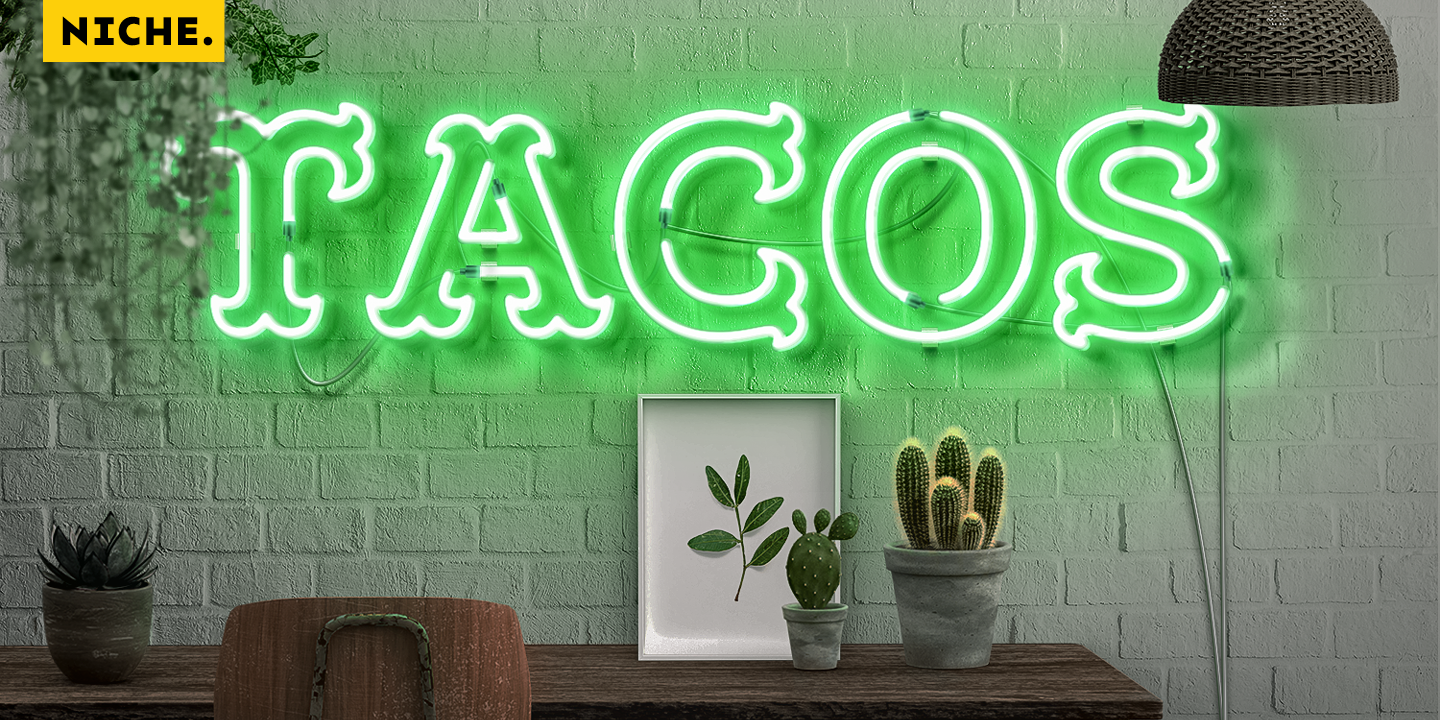
Poblano Font is perfect for authentic Mexican restaurant branding, traditional chili pepper farm communications, spicy food product packaging, Latin American cultural center signage, artisanal hot sauce company marketing, Mexican heritage festival promotions, Southwest cuisine cookbook designs, and fiery culinary experience campaigns. This flavorful typeface excels in applications where Mexican culinary tradition, spicy heat intensity, and authentic Latin flavor are essential for connecting with audiences who appreciate the rich heritage of Mexican cuisine and the bold intensity of traditional chili pepper culture.
What makes Poblano Font so exciting is its vibrant embodiment of Mexican culinary heritage and chili pepper authenticity that perfectly captures the essence of traditional poblano peppers and the rich cultural traditions of Mexican cooking where bold flavors and ancestral recipes create unforgettable dining experiences. The font features warm, earthy letterforms with pepper-inspired characteristics that evoke traditional Mexican pottery and handwritten recipe cards. Its flavorful character conveys authenticity, warmth, and cultural pride - essential qualities for brands serving Mexican food markets, spicy cuisine enthusiasts, and audiences who appreciate authentic Mexican flavors, traditional cooking methods, and the passionate culinary heritage of chili pepper cultivation and Mexican gastronomy.
The Poblano Font family includes multiple spicy weights and Mexican-inspired variations that enhance its culinary appeal. Some versions feature subtle texture elements that simulate dried pepper skins and traditional Mexican craftsmanship, while others provide cleaner variants that maintain the font's authentic character with enhanced readability for professional food service applications and commercial Mexican cuisine communications.
Whether you're creating branding for Mexican restaurants, designing materials for spicy food products, or developing marketing campaigns for Latin culinary experiences, Poblano Font Free Download provides the authentic flavor your project requires. The font's Mexican character makes it particularly effective for brands targeting food enthusiasts who appreciate authentic Mexican cuisine, traditional flavors, and the passionate heritage of poblano pepper cultivation and Mexican cooking traditions.
Spice up your brand with Poblano Font and heat up flavorful communications with typography that celebrates the authentic fire of Mexican culinary heritage and chili pepper tradition.